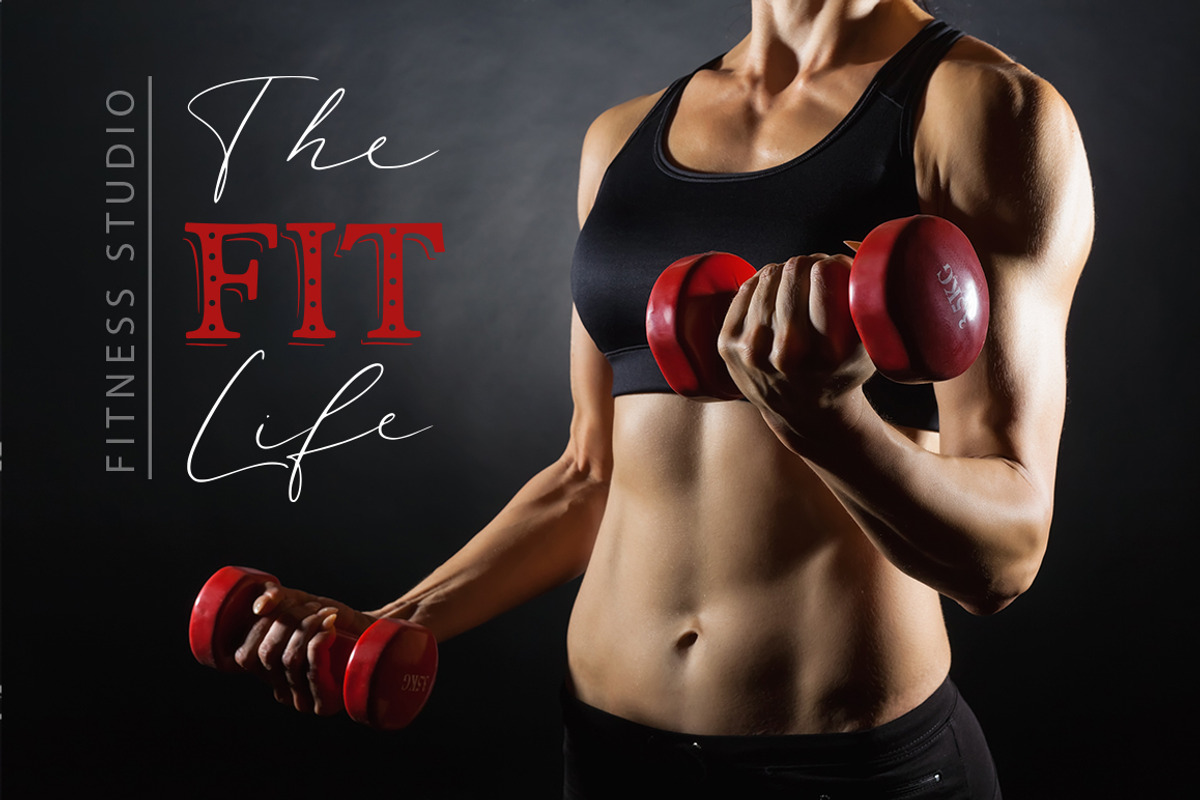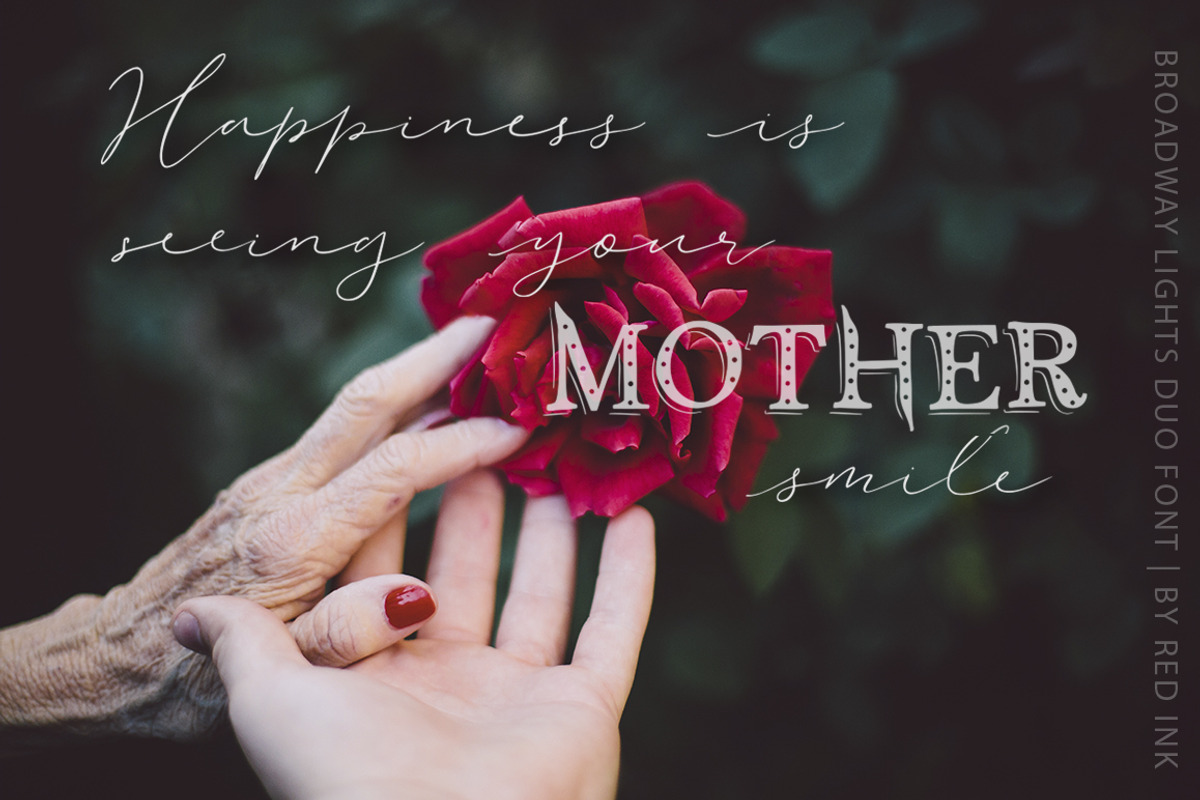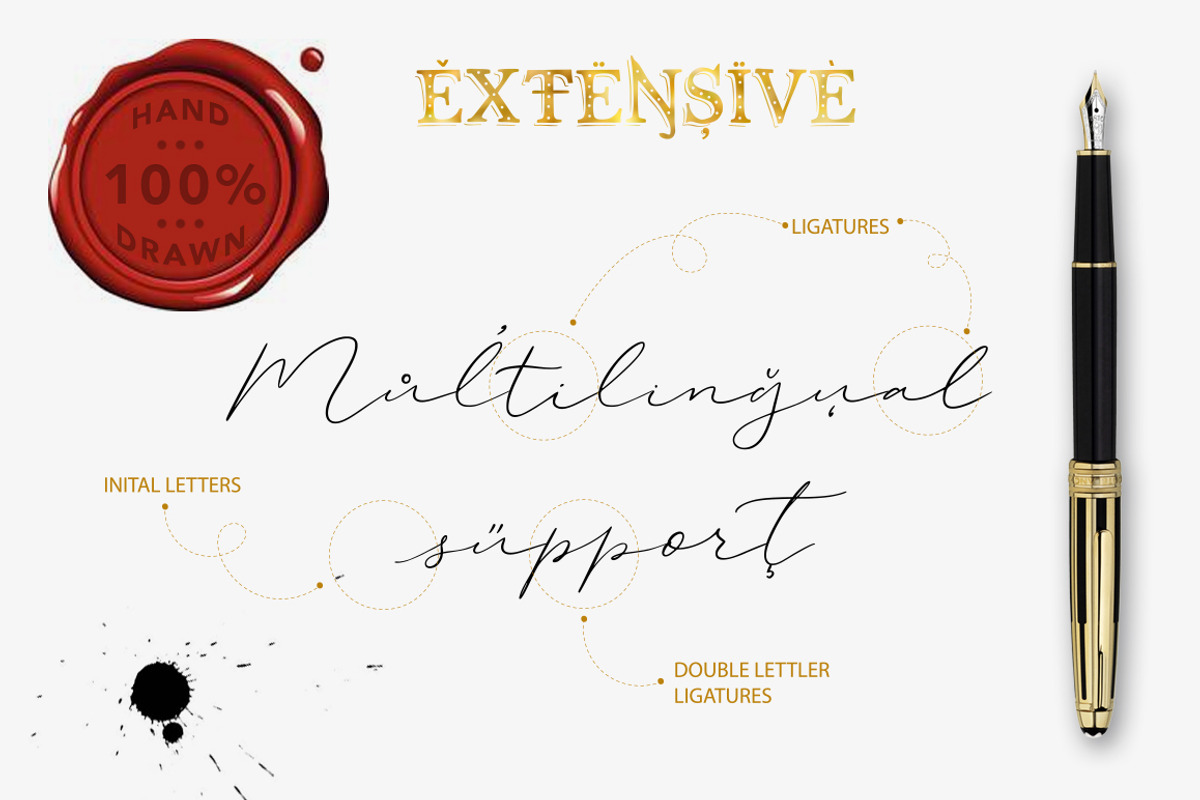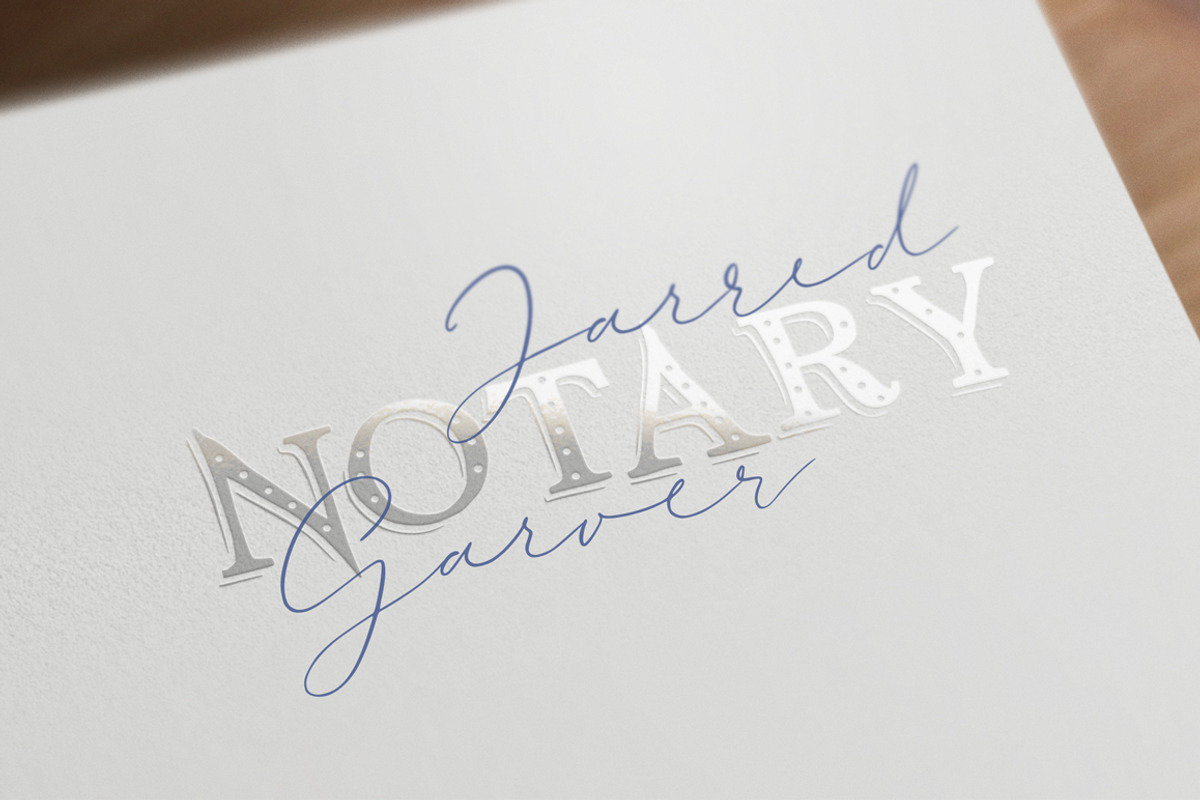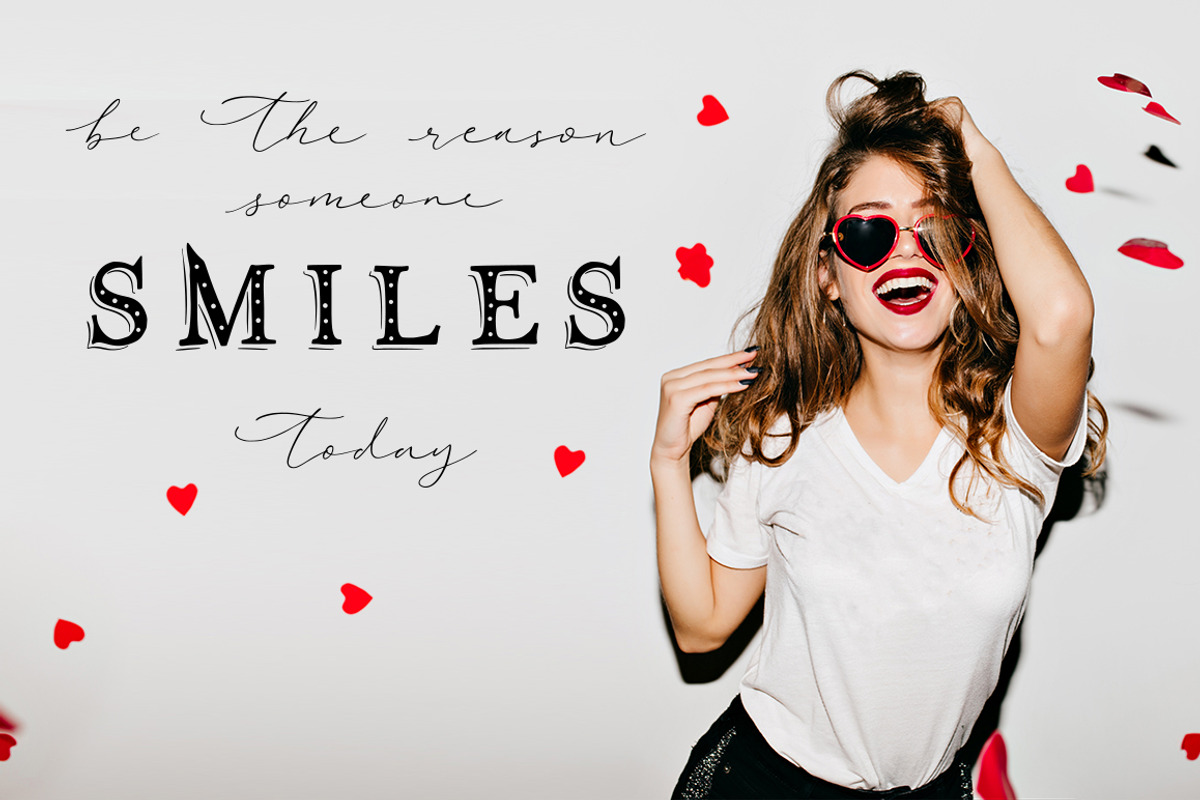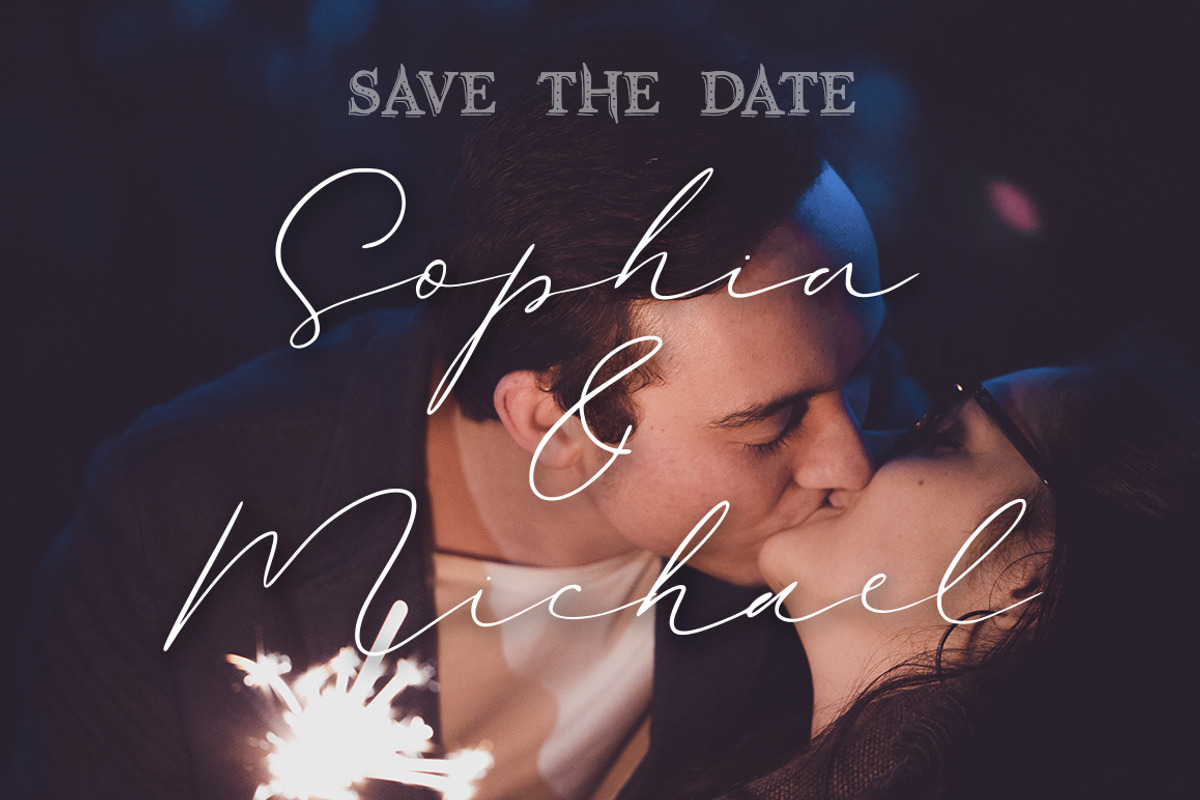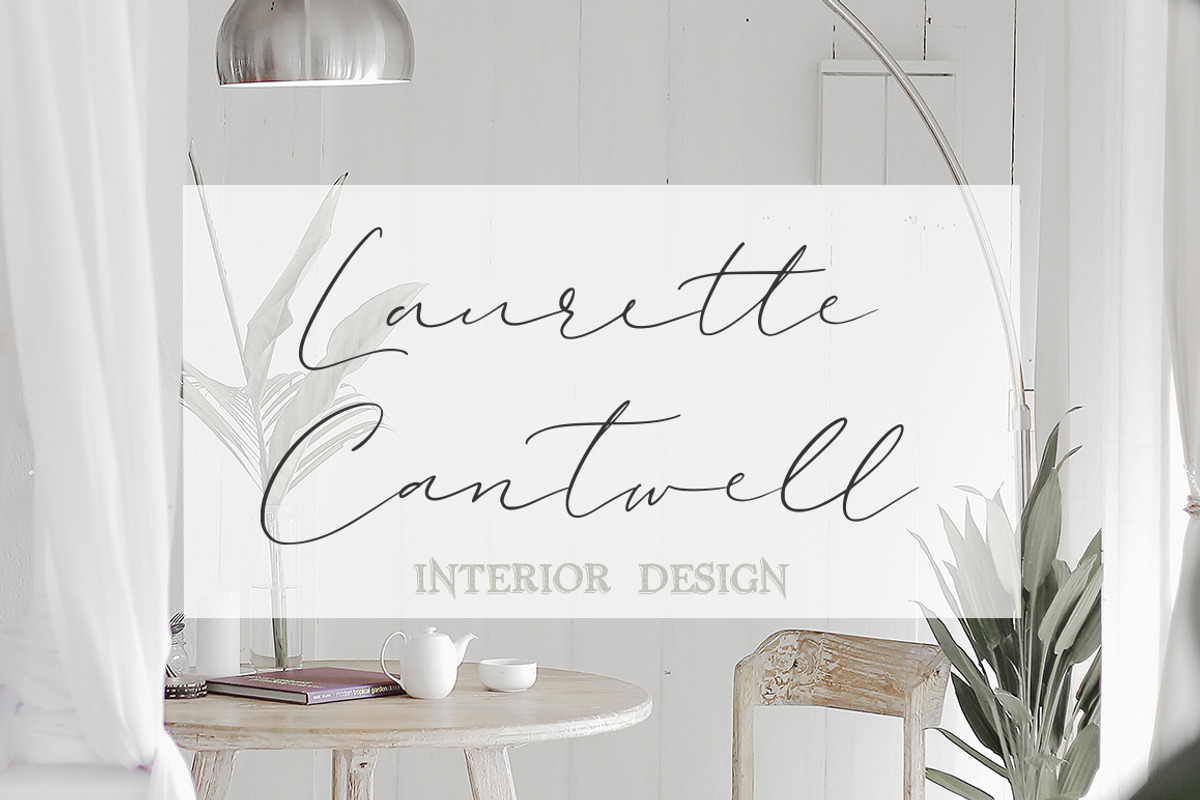
Broadway Lights | Duo Font.
Meet my new duo font «Broadway Lights».
‘Broadway Lights’ is a beautiful gentle pair of script and sans serif fonts. Perfectly combined typographic harmony is perfect for posters, greeting cards, t-shits, branding materials, quotes and any other amazing projects you are working on. Expressive hand drawn fonts with some vintage feeling can be used separately. In conjunction they give a sense of lightness and delicacy.
Broadway Lights font comes with such opportunities & OpenType features:
58 Ligatures for double letters
Initial forms for all lowercase letters
Extended language support, it covers Western European, Central European and South Eastern European languages
- 58 Ligatures for double letters
- Initial forms for all lowercase letters
- Numerals & Punctuation